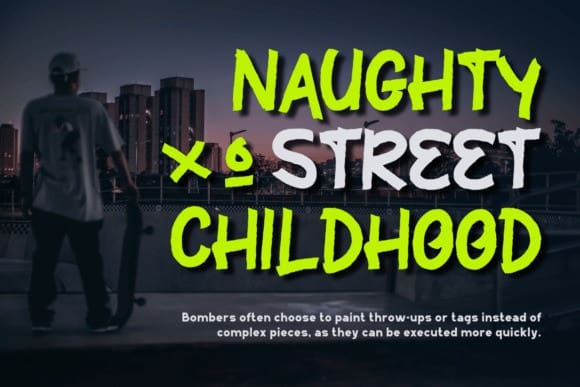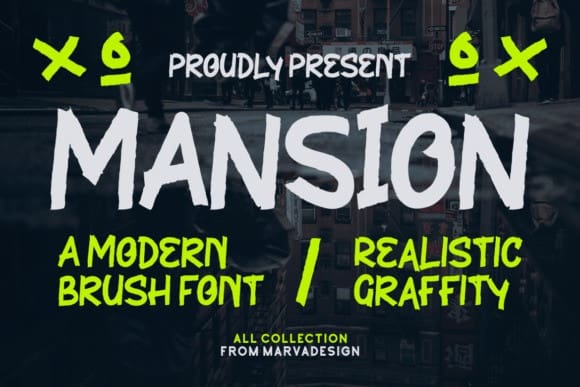
Mansion Brush Font
Mansion Brush Font is a trendy Modern Brush font that brings a stylish edge to your designs. With bold strokes and contemporary flair, this font adds a touch of sophistication to any project. Perfect for creating eye-catching headlines, logos, or social media posts, Mansion Brush effortlessly combines modern aesthetics with a brushstroke twist. Elevate your design game with this sleek and versatile font that exudes a confident and chic vibe.